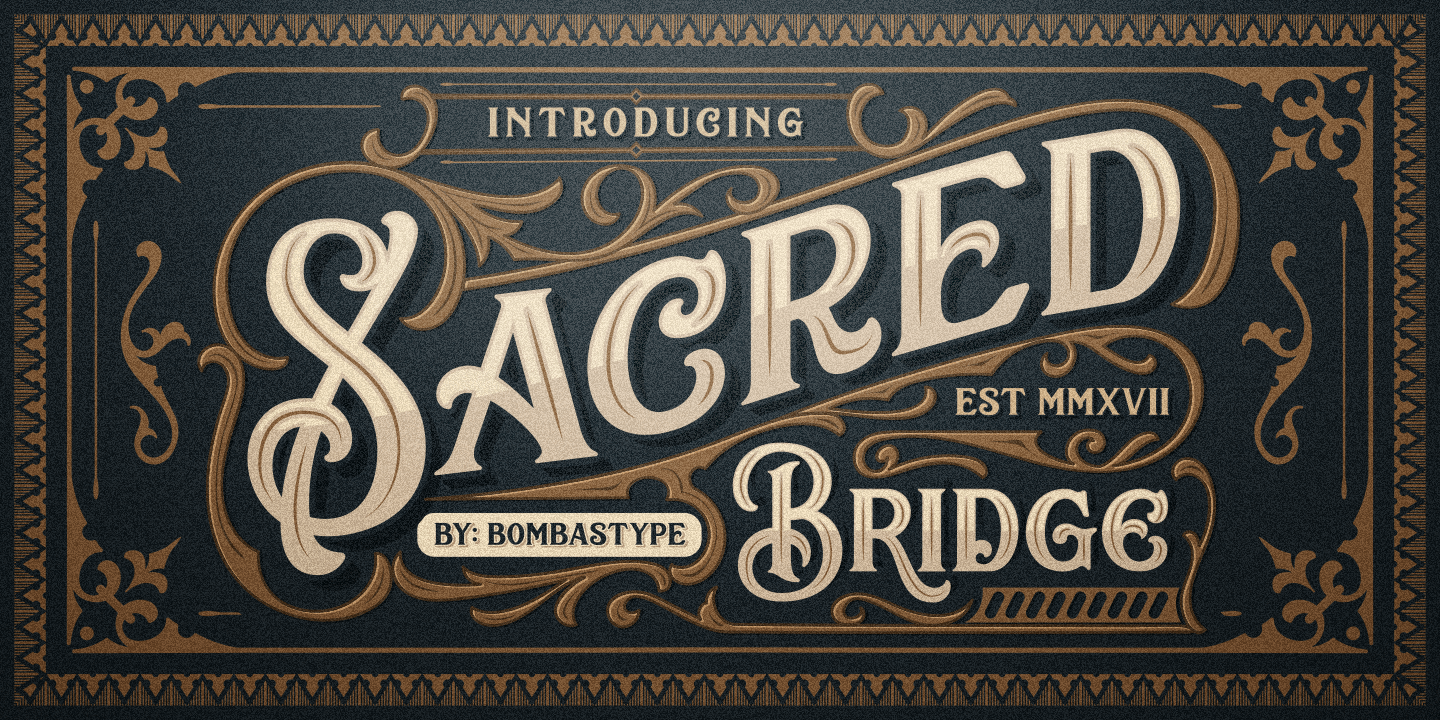
Sacred Bridge Font is ideal for tattoo-inspired branding, vintage posters, album covers, gothic fashion labels, barbershop logos, and dramatic editorial titles. It brings a rebellious, spiritual, and old-school essence to any design it's part of.
What makes Sacred Bridge Font Free Download so exciting is its unique blend of gothic calligraphy and modern sharpness. With its ornate letterforms and high-contrast strokes, it grabs attention and evokes a sense of mystery and power—perfect for making a bold statement.
The Sacred Bridge font family includes Sacred Bridge Regular, Sacred Bridge Rough, and Sacred Bridge Shadow, allowing for layering effects and stylistic variations that elevate your designs with texture and depth.